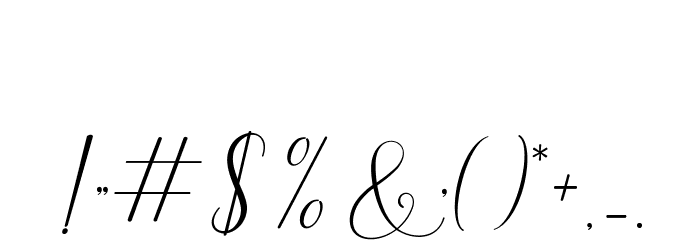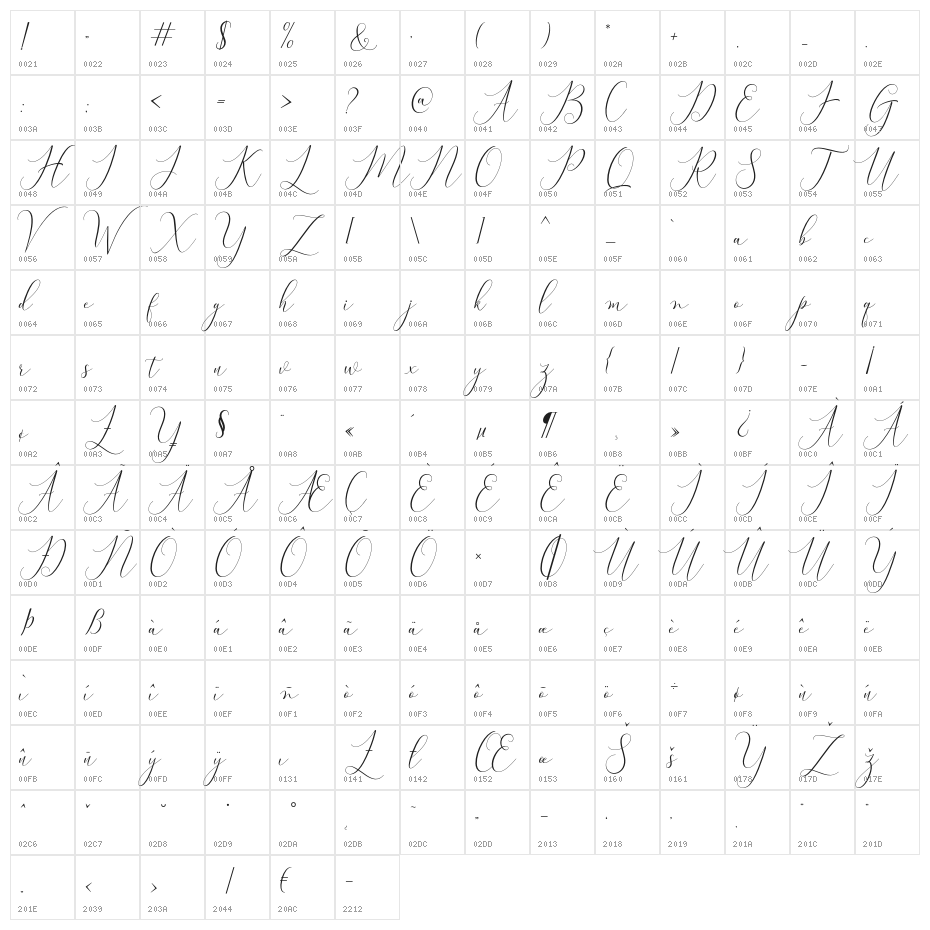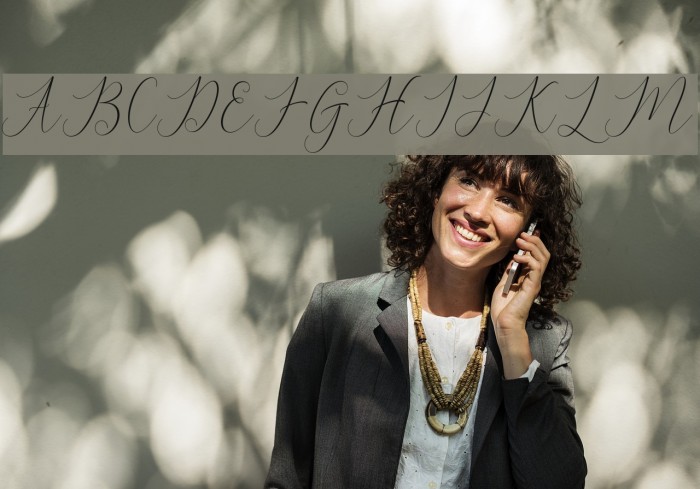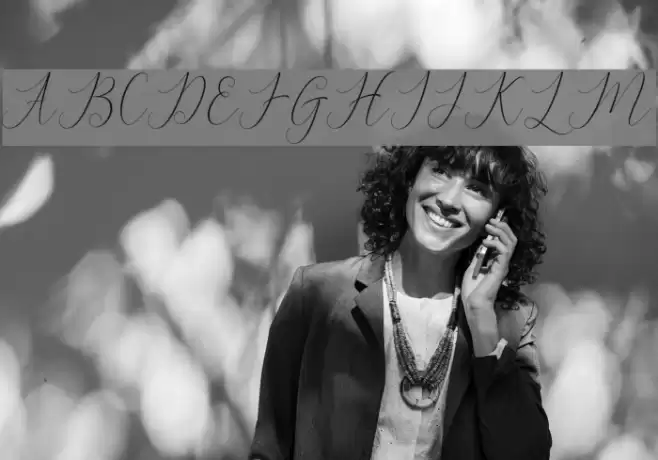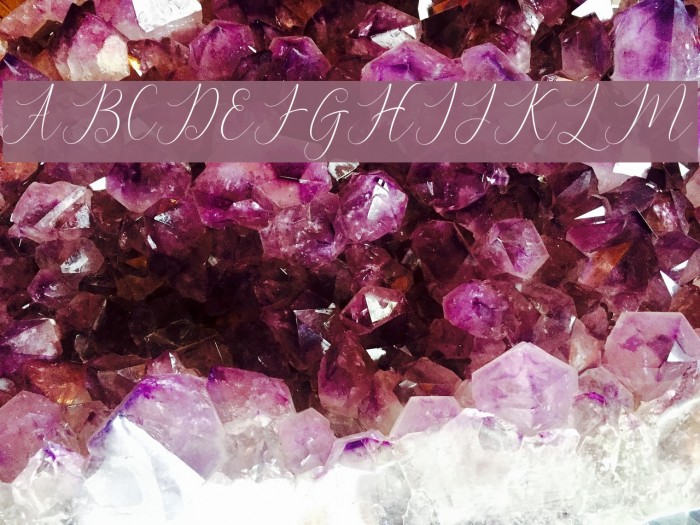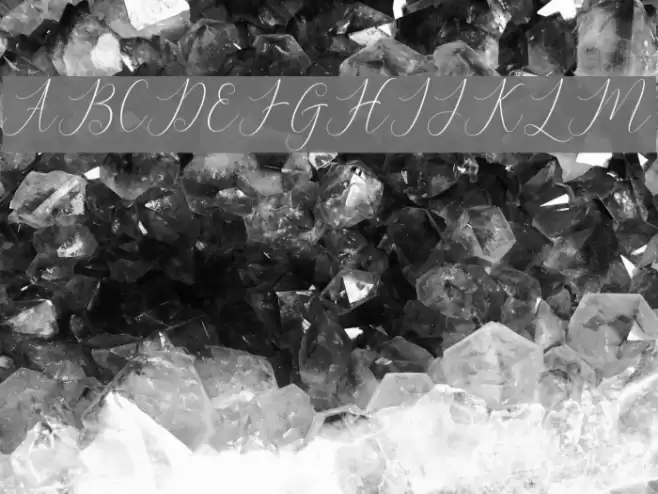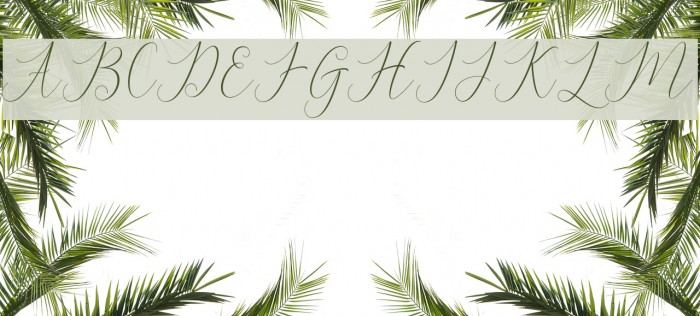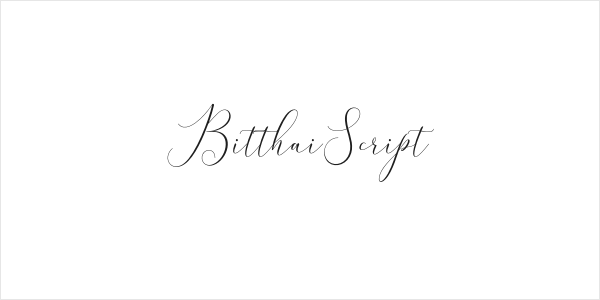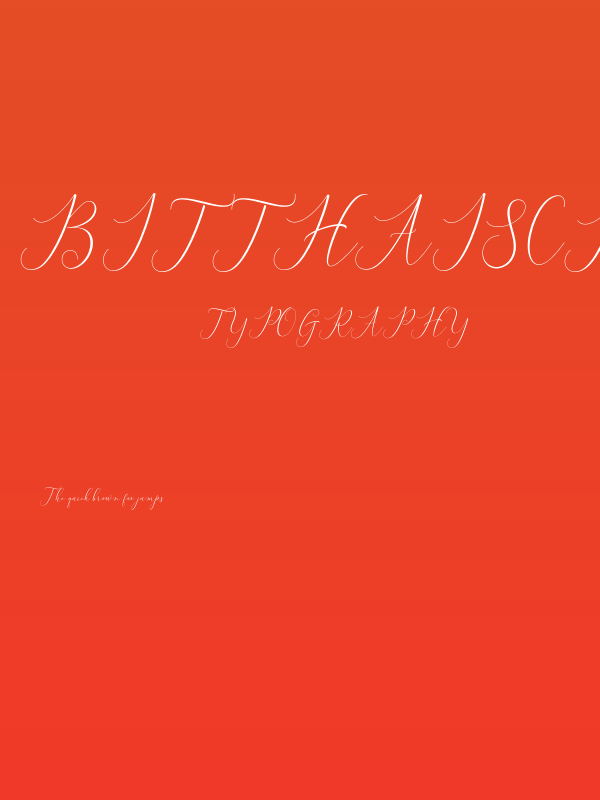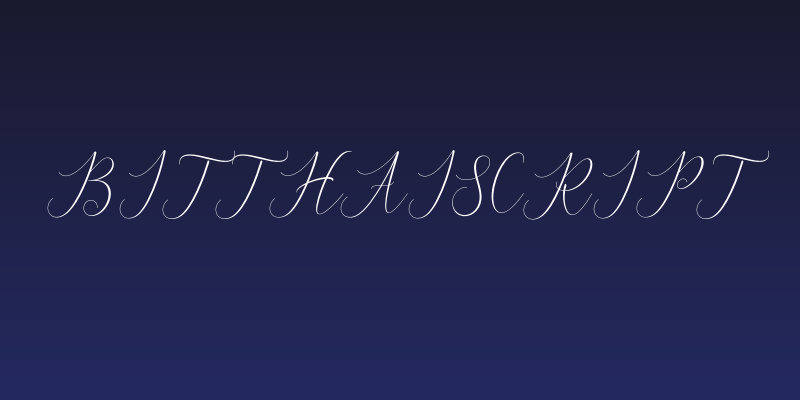
BitthaiScript Font
BitthaiScript Description
This elegant script font features a flowing, cursive style with delicate, sweeping strokes that convey a sense of sophistication and grace. The uppercase letters are characterized by their tall, slender forms and intricate loops, while the lowercase letters maintain a consistent fluidity and connectedness. The font includes a full set of numerals and a variety of special characters, each designed with the same attention to detail and artistic flair. The overall appearance is both classic and modern, making it versatile for a range of design applications.
| Overall Style | Elegant, Classic |
| Use Case | Headlines, Invitations, Branding |
| Proposed Projects | Ideal for wedding invitations, elegant branding, personal stationery, and decorative headlines. |